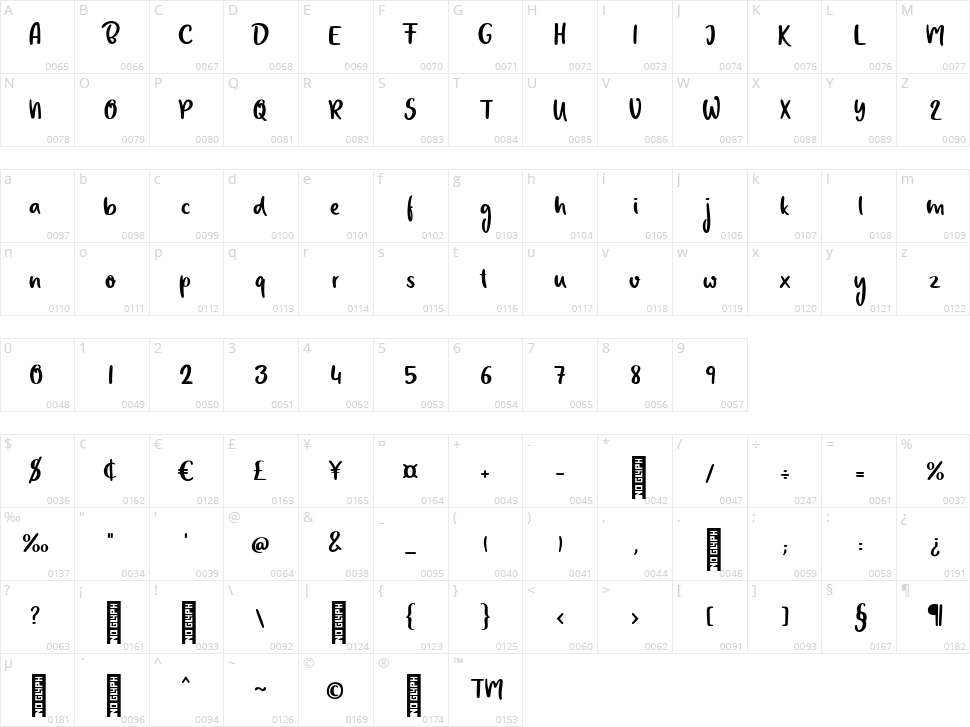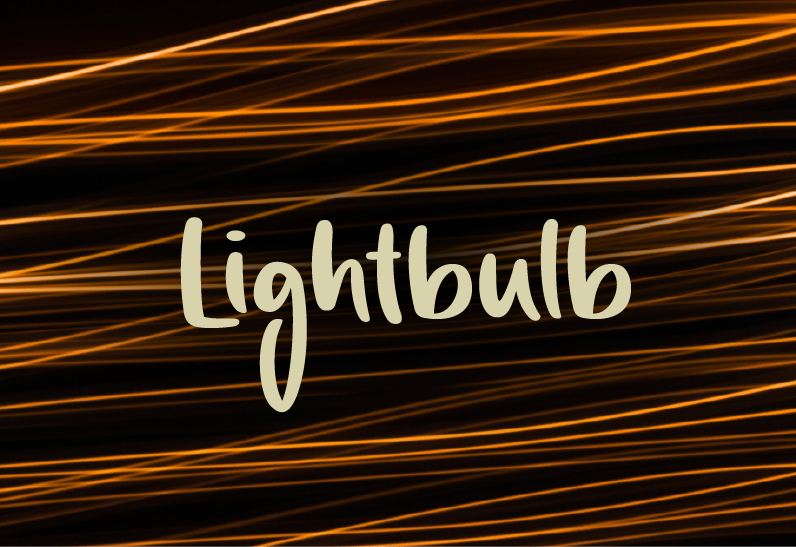
*** which also has a wide multilingual support, symbols and numbers.
This is Lightbulb, our newest handwritten brush font that is suitable for promotion, stationery, branding, product packaging, and other needs. The full version contains more than 500 glyphs and is perfect for your next work.
*** which also has a wide multilingual support, symbols and numbers.
This is Lightbulb, our newest handwritten brush font that is suitable for promotion, stationery, branding, product packaging, and other needs. The full version contains more than 500 glyphs and is perfect for your next work.